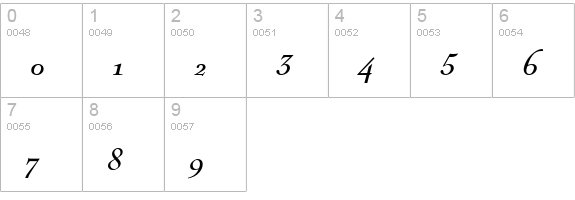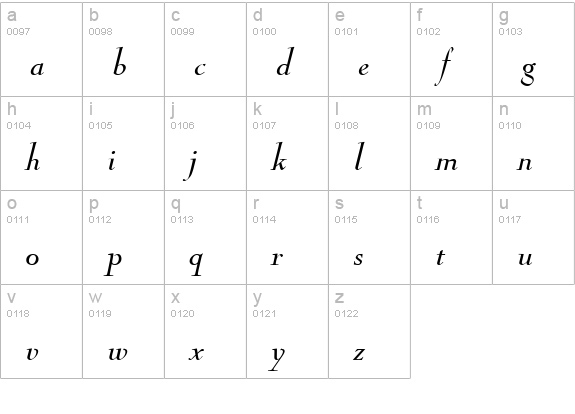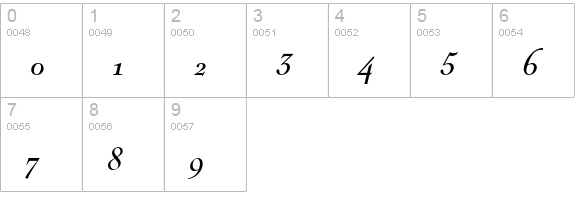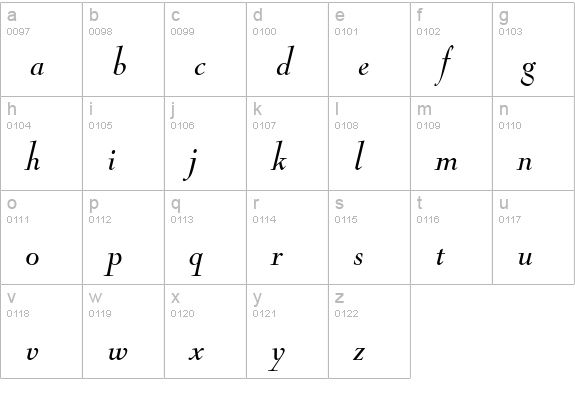
NicolasCocTReg Italic is a distinctive, italic variant in the NicolasCocTReg typeface family \xE2\x80\x94 well suited to design and typography projects.
NicolasCocTReg Italic font is a stylish and elegant typeface that exudes sophistication and modernity. Its sleek design and slanted angles add a touch of flair to any project, making it perfect for both professional and creative use. This versatile font is ideal for a wide range of applications, from branding and advertising to web design and social media graphics. The best part? NicolasCocTReg Italic font is completely free to download at FontsMarket.com. With just a few clicks, you can enhance your designs with this eye-catching typeface without breaking the bank. Don't miss out on the opportunity to add a touch of class to your projects with this stunning font that is just a download away.